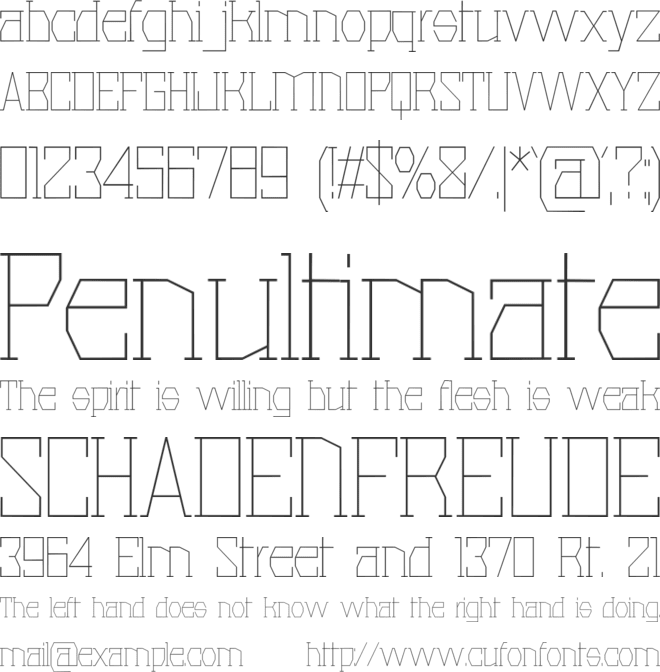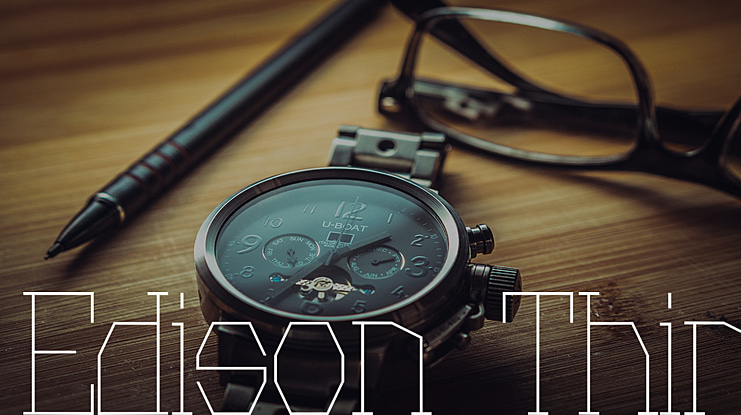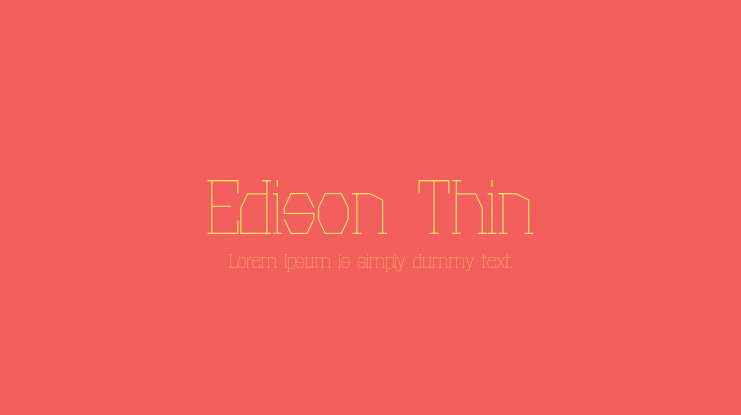
Edison Thin Font Family
From the magical world of Thomas Edison's seventh art, an unprecedented font that combines originality and practicality, to adapt to every use. 6 Open Type fonts (thin-ultralight-light/italic) for a modern look aimed at printing and contemporary graphics.
Dal magico mondo della settima arte di Thomas Edison, un inedito font che combina originalità e praticità, per adattarsi ad ogni uso. 6 font Open Type (thin-ultralight-light/italic) per una moderna veste rivolta alla stampa e alla grafica contemporanea.